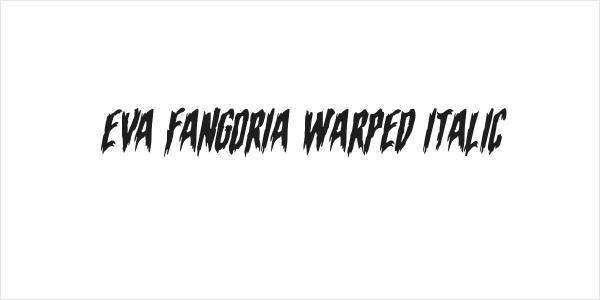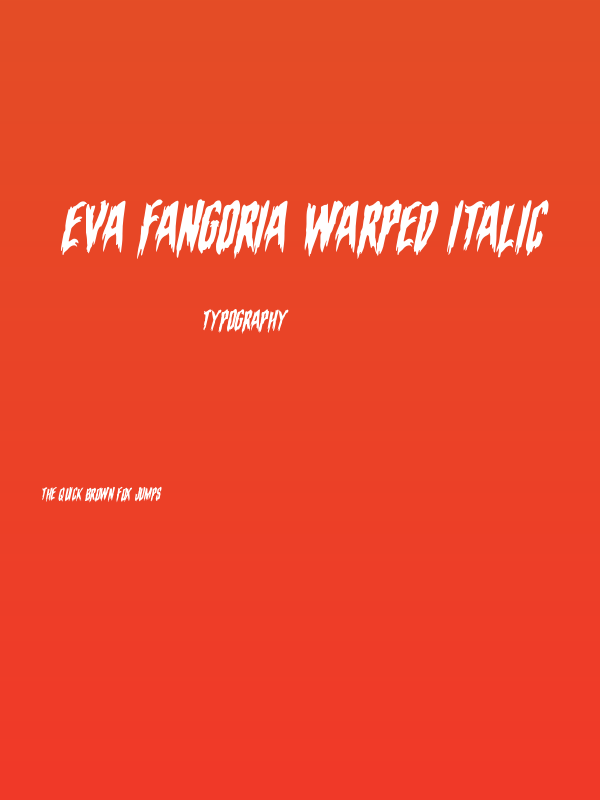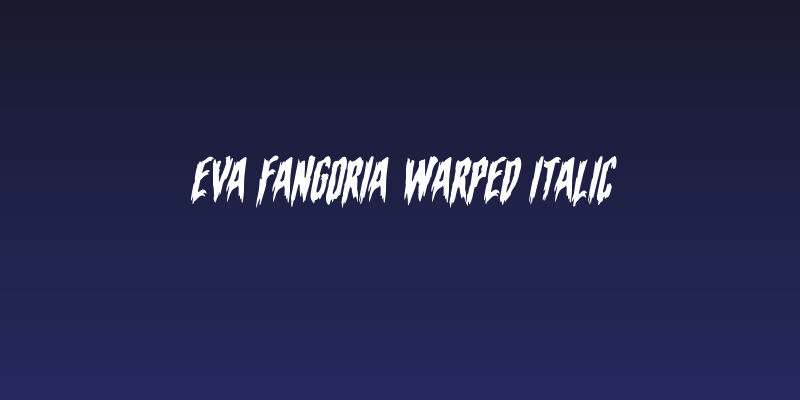
Eva Fangoria Warped Italic Font
Eva Fangoria Warped Italic Description
This font features a bold and dramatic style with a warped, jagged appearance that gives it a dynamic and edgy feel. The characters are heavily stylized, with sharp angles and irregular strokes that create a sense of movement and intensity. The italic slant adds to the sense of urgency and action, making it ideal for attention-grabbing designs. The uppercase and lowercase letters maintain a consistent style, while the numbers and special characters are equally bold and expressive. This font is perfect for projects that require a strong visual impact and a touch of the unconventional.
| Proposed Projects | Ideal for horror-themed posters, edgy branding, album covers, and Halloween event promotions. |